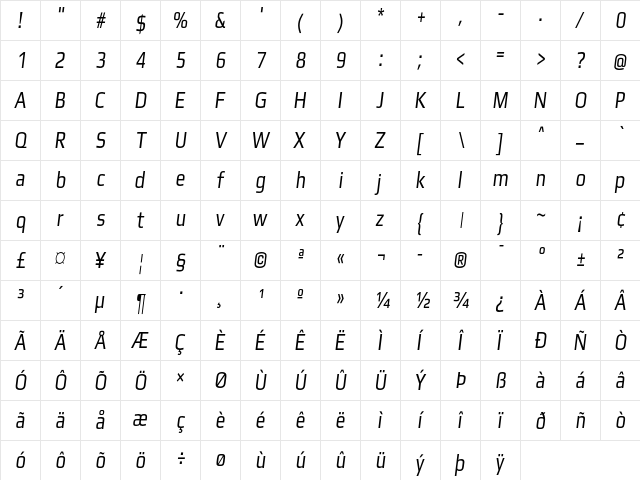
Gamestation Condensed Italic
| Foundry | Jonas Hecksher, Playtype-types AS |
| Designer | Jonas Hecksher |
Design Context for Gamestation Condensed Typeface
Gamestation Condensed offers clean, dependable letterforms without strong stylistic allegiance, making it a practical choice for designers who need flexibility. The dynamic lean of this cut emphasises speed and emphasis in any layout. Its narrow stance lets it pack a punch even in space-constrained designs.
Pro Tip: Use Gamestation Condensed for emphasis, pull quotes, and subheadings where its slanted energy can add rhythm to the layout.